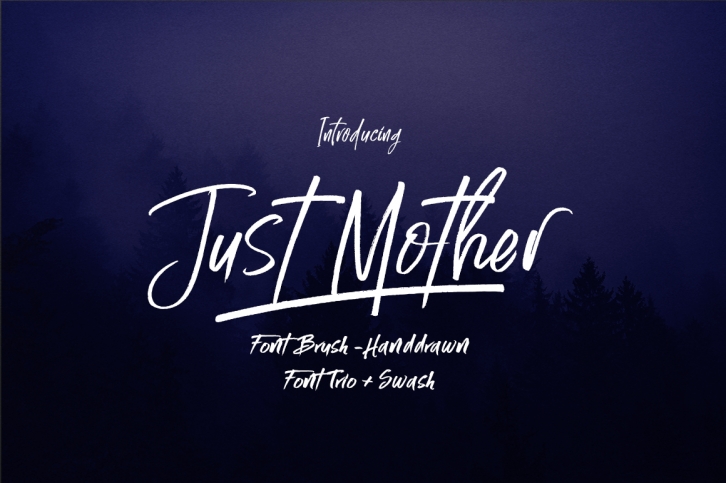
Just Mother is a trendy and unique font with an authentic style. It was designed by roiyani and it's a great choice for creative people who need such a font. It was released on September 26, 2018 and the file size is 17.45 MB. Just Mother will add an organic vibe to any design idea!